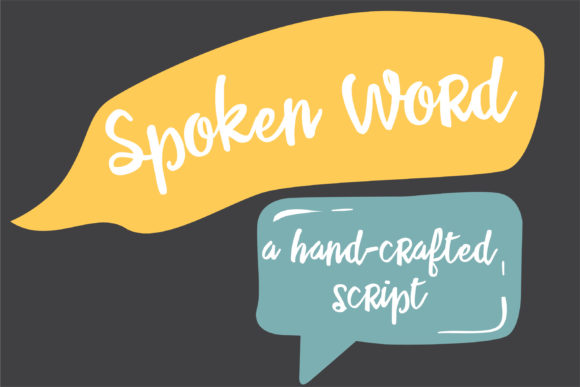
Meet PN Spoken Word: A Font That Will Ignite Your Creative Spark
In a world where words dance and emotions flow, PN Spoken Word emerges as a masterpiece of handwritten elegance, crafted to bring a touch of grace to your creative endeavors. This script font, born from the imagination of Illustration Ink, is a symphony of flowing lines and delicate curves, designed to capture the essence of heartfelt expression.
Embrace the Allure of PN Spoken Word:
1. Timeless Elegance: Step into a realm of timeless sophistication with PN Spoken Word, a font that effortlessly blends tradition with modernity. Its graceful strokes evoke a sense of nostalgia, while its contemporary touch ensures a design that resonates with the present.
2. Expressive and Emotive: Let your words come alive with PN Spoken Word. This font is a canvas for emotions, allowing you to convey messages with a depth and sincerity that captivates your audience. Its expressive nature adds a personal touch to every project, making your designs truly unforgettable.
3. Versatile Performer: PN Spoken Word is a versatile chameleon, adapting effortlessly to a myriad of creative projects. From heartfelt wedding invitations and elegant logos to enchanting branding materials and captivating social media posts, this font shines as a versatile performer, adding a touch of magic to every design.
4. Unparalleled Legibility: Experience the joy of effortless readability with PN Spoken Word. Its carefully crafted characters ensure clarity and legibility, even in the smallest of sizes. Your designs will be easy on the eyes, ensuring your message is conveyed with crystal-clear precision.
5. Ignite Your Imagination: Unleash the boundless creativity within you with PN Spoken Word. This font is an invitation to let your imagination soar, to explore new design horizons, and to create masterpieces that leave a lasting impression. Embrace the power of PN Spoken Word and watch your designs transform into works of art.